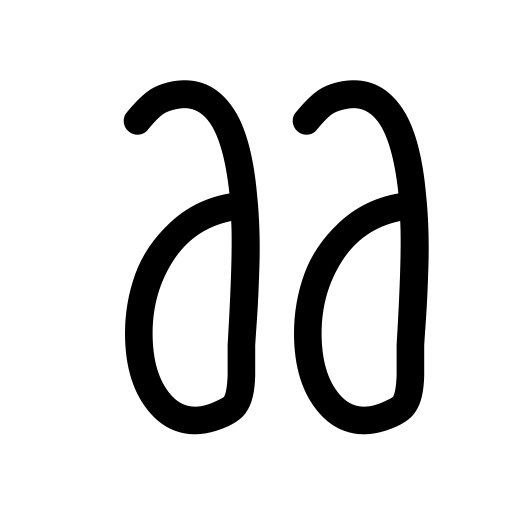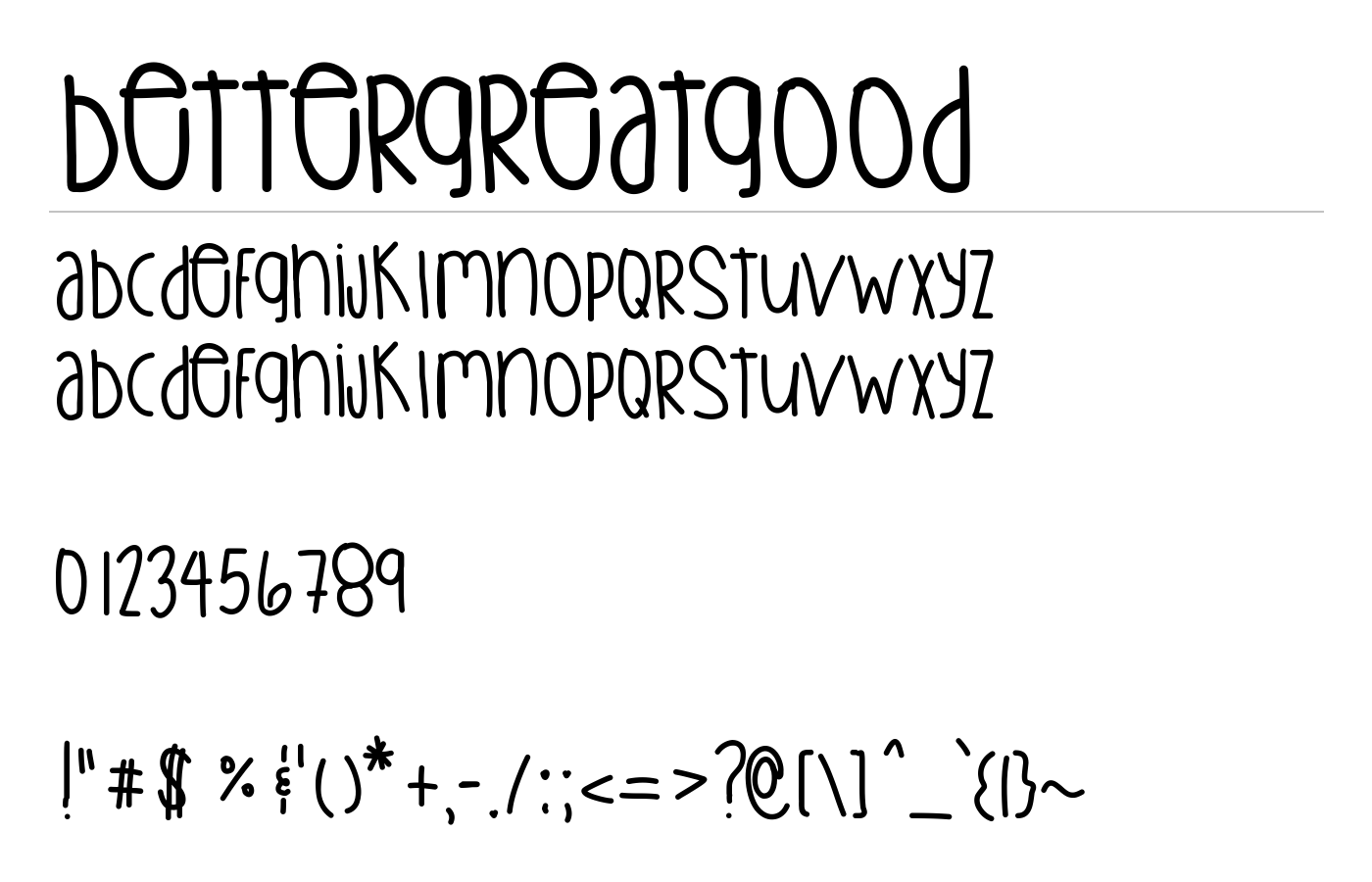
BetterGreatgood is a playful, hand-drawn sans serif font with a tall, narrow structure and a casual, friendly feel. Its thin strokes and quirky letterforms make it perfect for informal branding, children’s books, or creative projects looking for a unique, approachable style. This font works well in headlines or short text where a fun, personal touch is desired.
BetterGreatgood Font